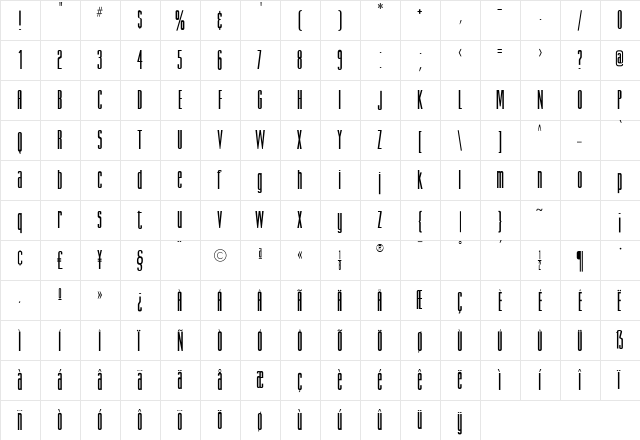
GiottoFLF Bold
Design Context for GiottoFLF Typeface
GiottoFLF is a composed and adaptable typeface that performs quietly and consistently across a wide range of design contexts. The heavy weight commands attention and anchors typographic hierarchies.